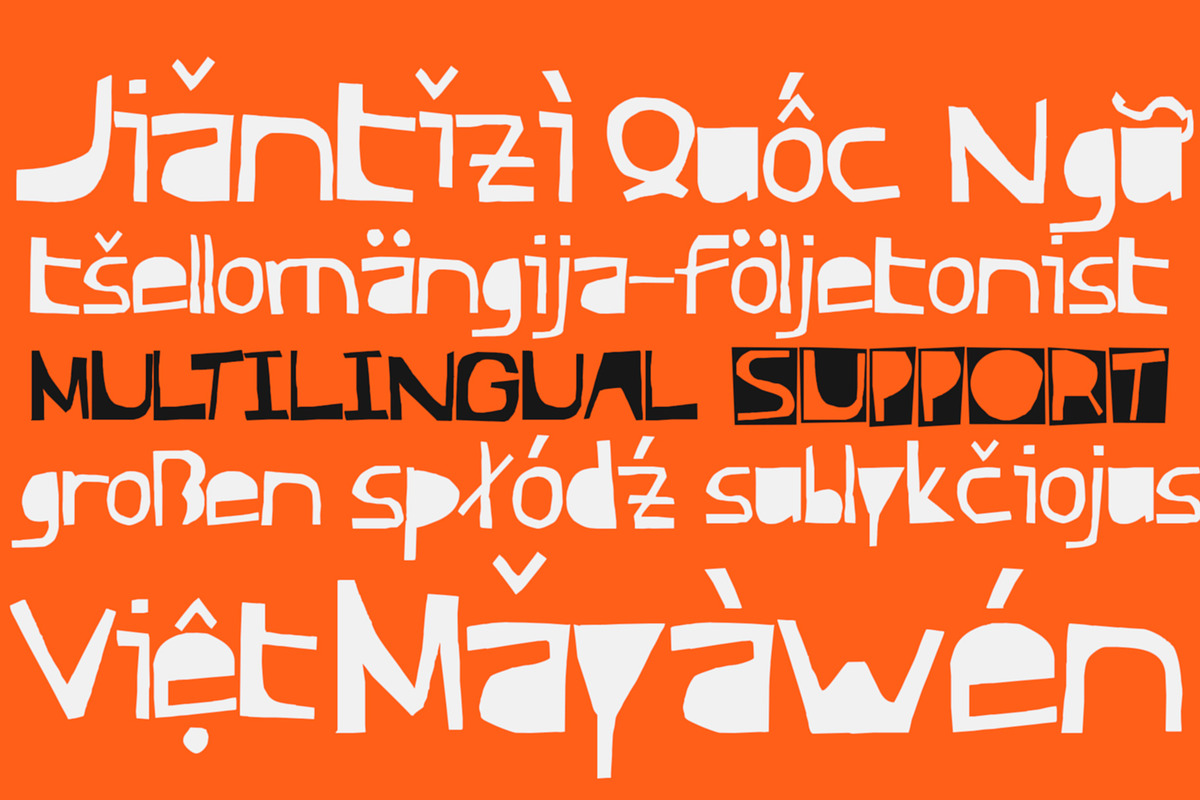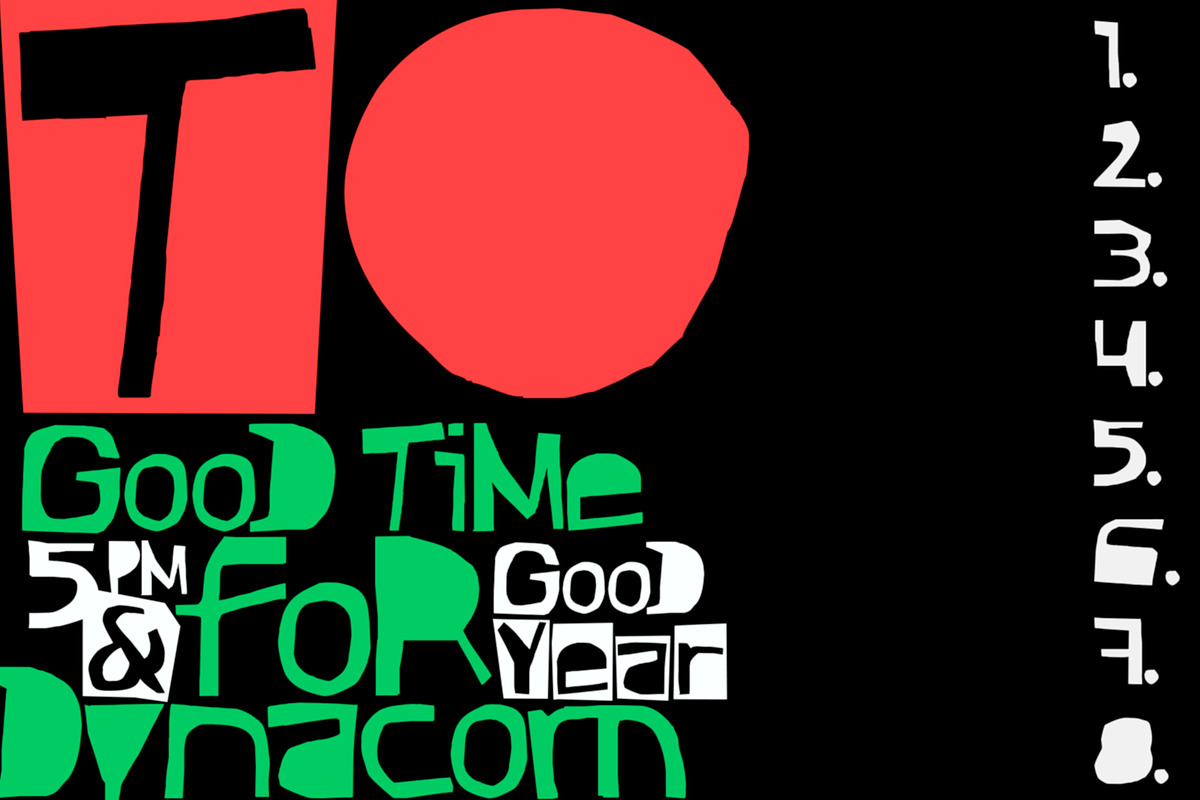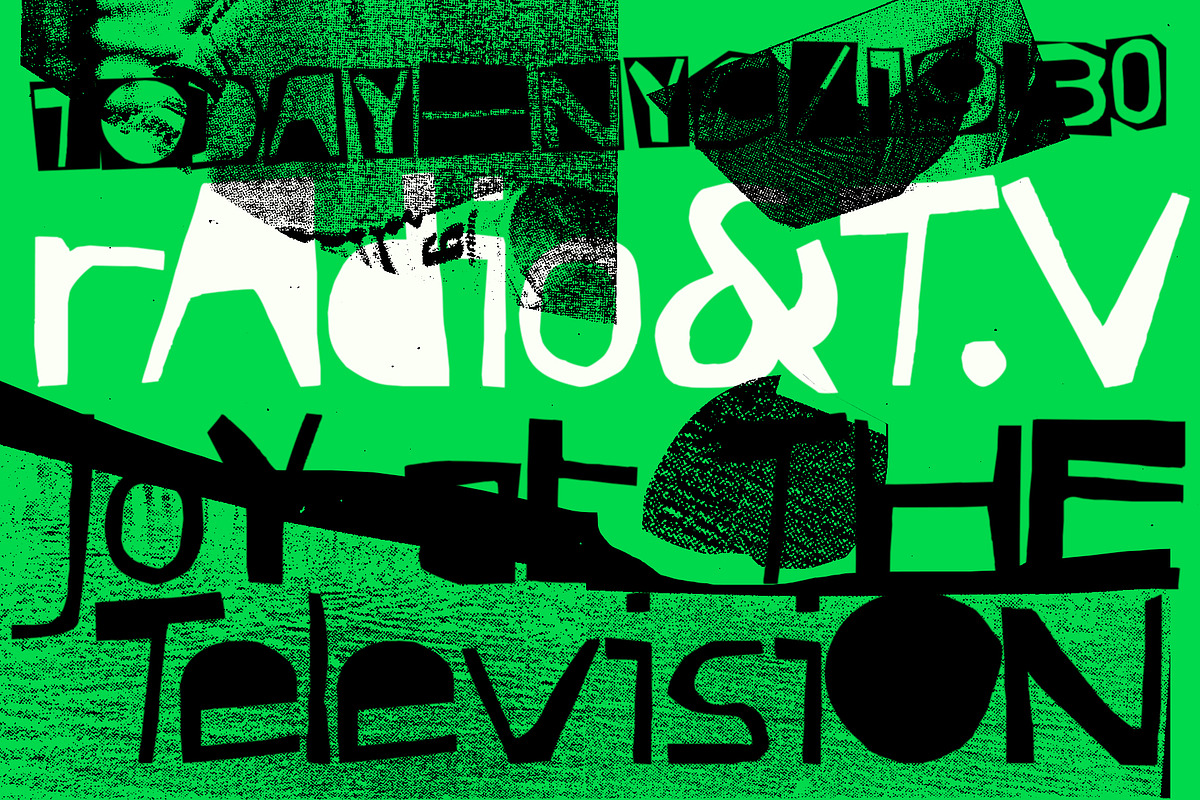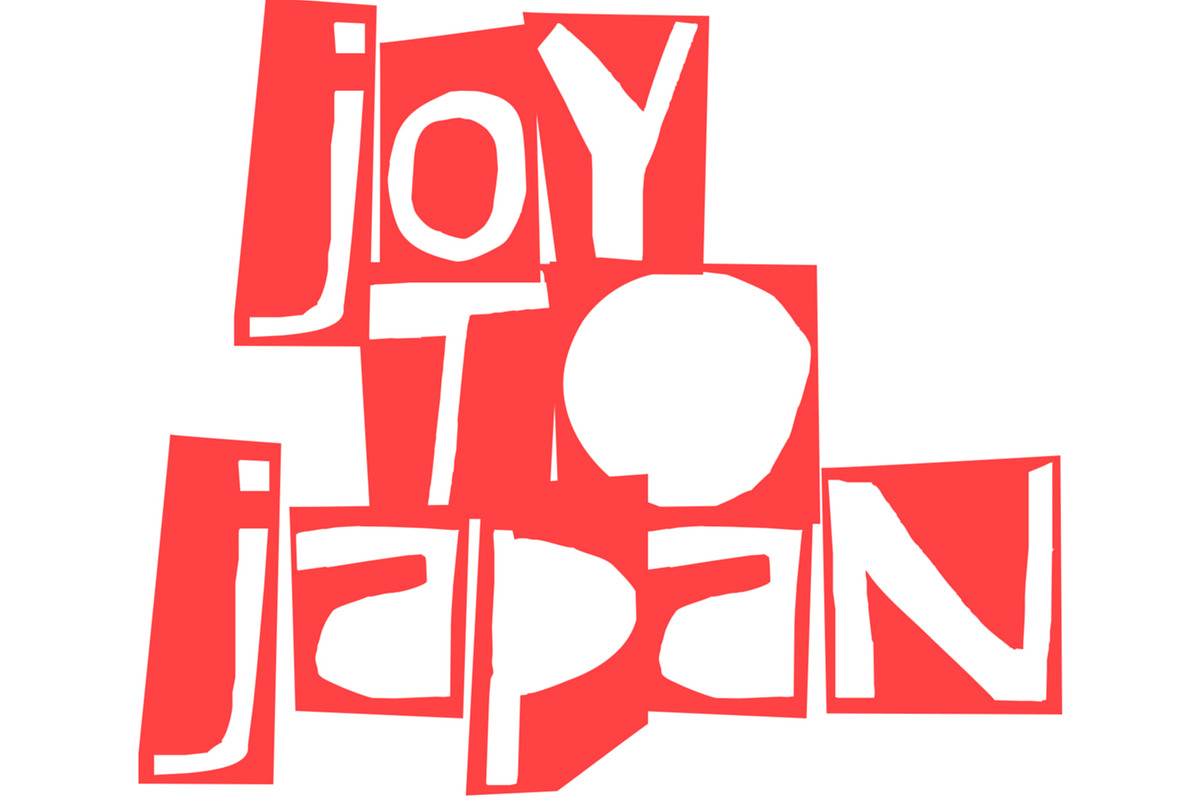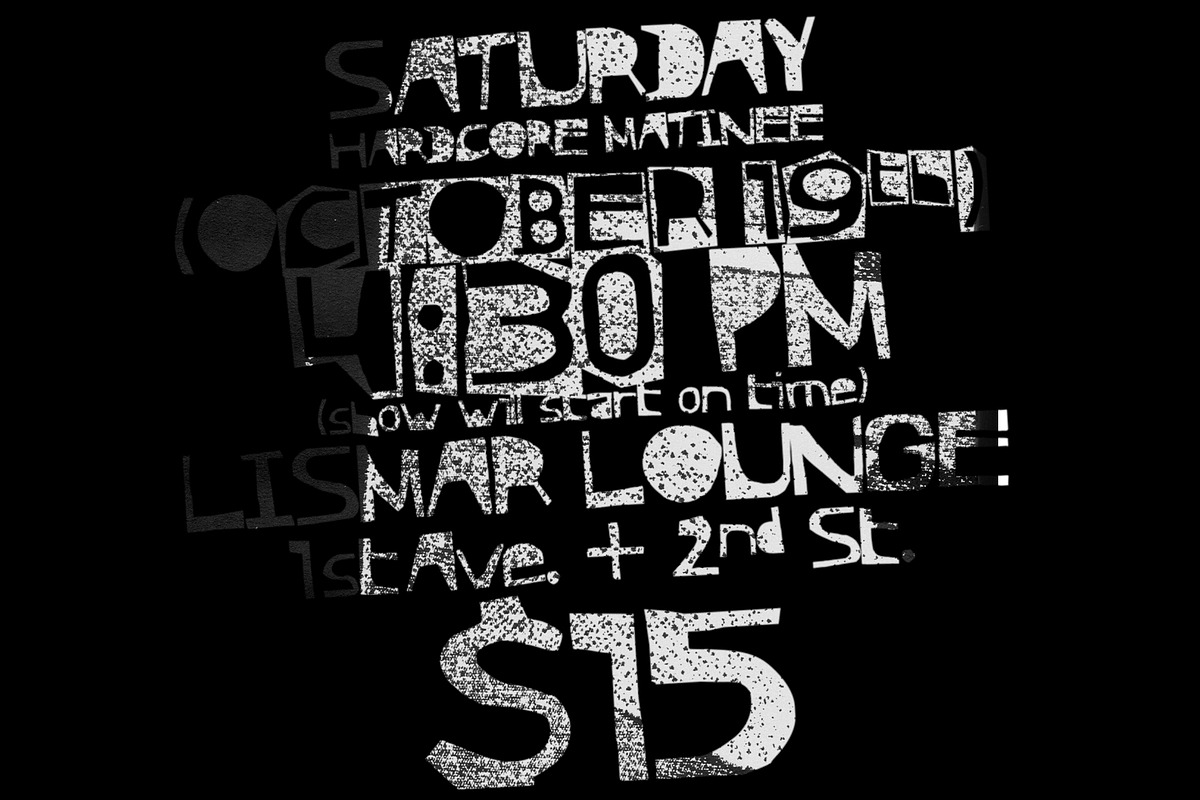
TOMO Ernest
Ernest is TOMO's new font! A handmade typeface with an unique yet strong voice. Say it bold with this font. Punk & Wave styles. Ideal for typography based designs.
- TOMO Ernest Punk
- TOMO Ernest Wave
TOMO Ernest by TOMO Fonts fits naturally into Branding, posters, packaging, typography.